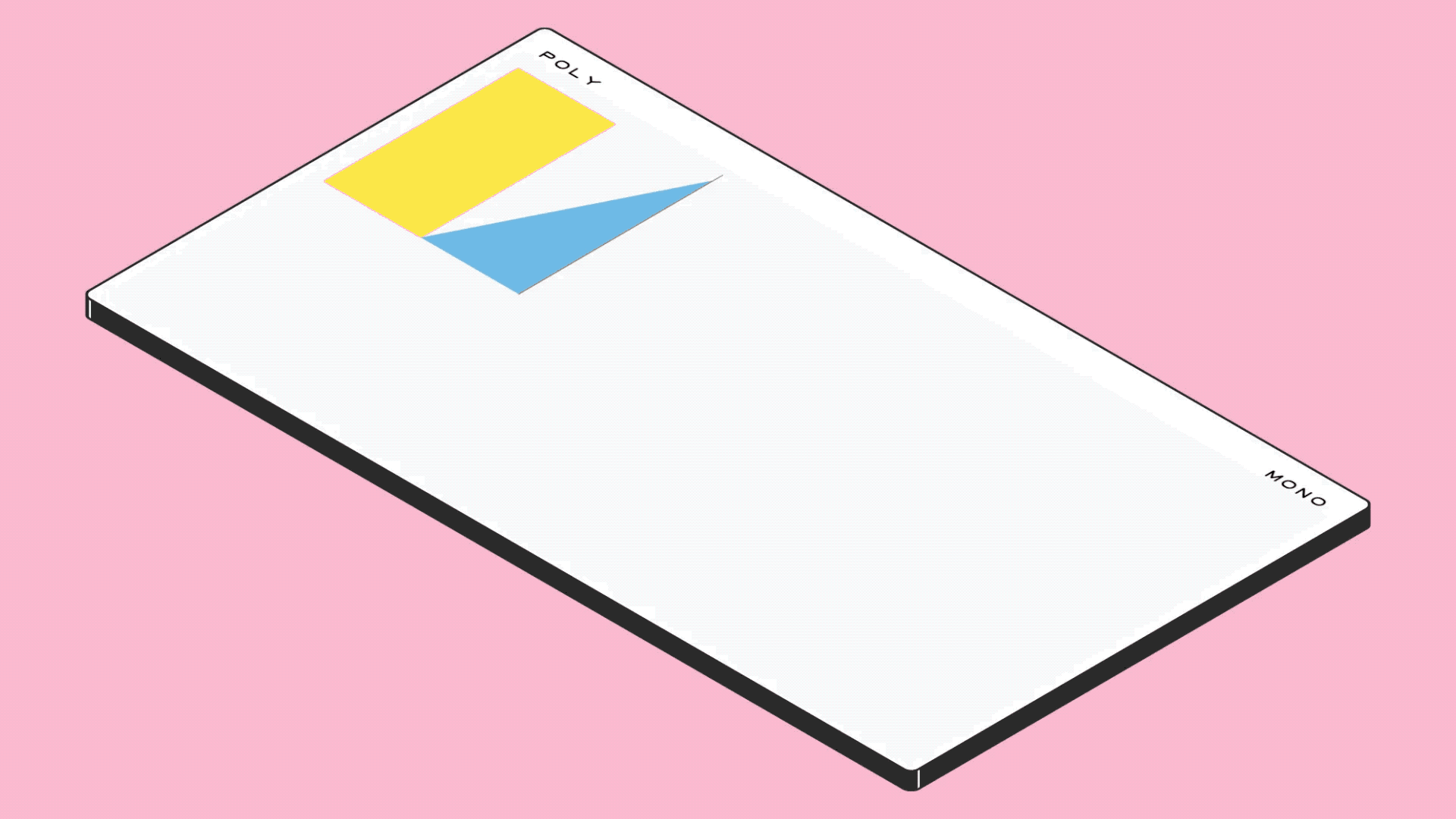
This colorful new font doesn't use a single letter
The new font Poly Mono is like Wingdings, if Wingdings was colorful, geometric, and obsessed with Karel Martens.